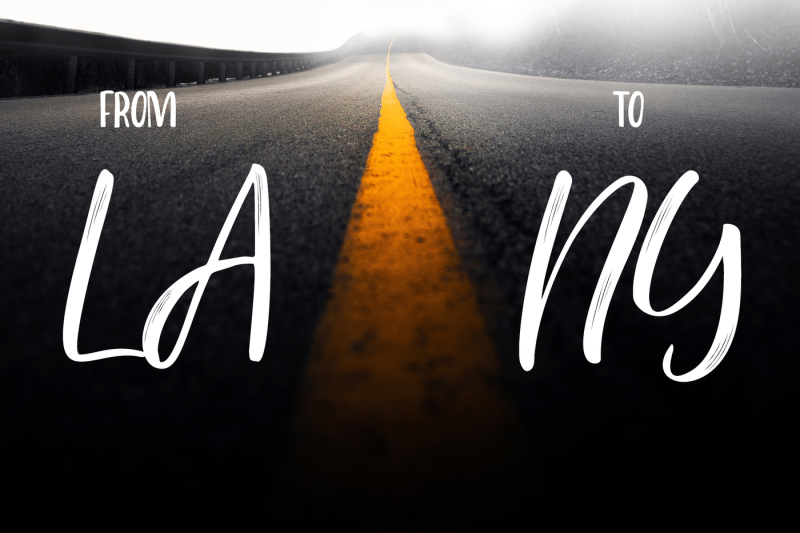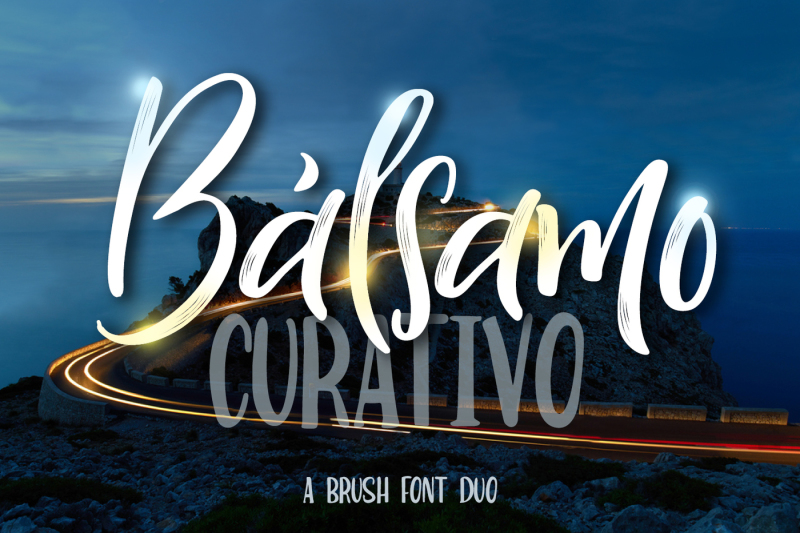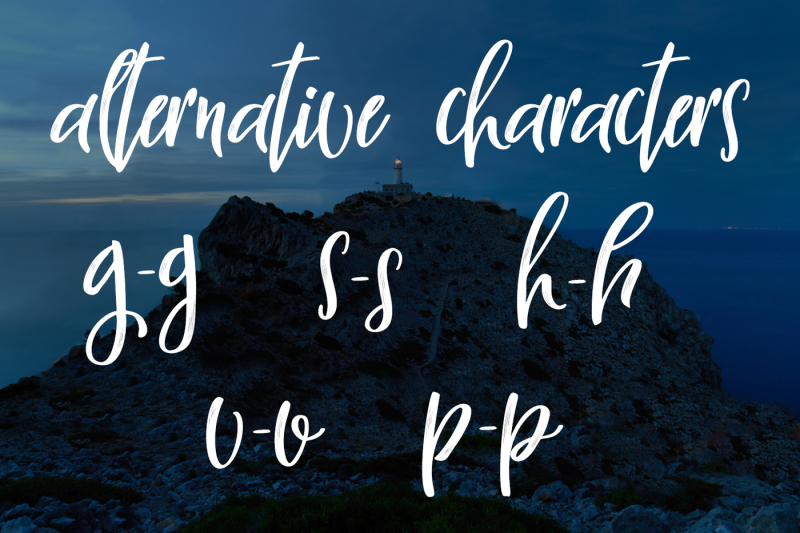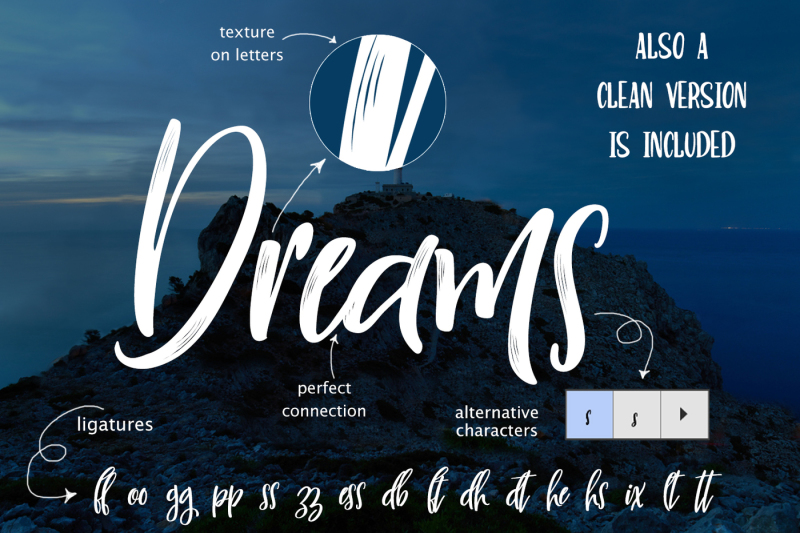
Bálsamo Curativo - Font Dou
Say hello to Bálsamo Curativo, script font dou! Bálsamo Curativo is a fancy handlettering typeface with a clear style, good mood, and dramatic movement. It's allowing you to create beautiful hand-made typography in an instant. The Bálsamo Curativo comes withset of lowercase alternates - pick the letters that looks best in your type design - and switch between different letters in the same word to create a more authentic look. Foreign Languages Support. Western European, Central, and South East European too. Spontaneity Font come with PUA Unicode that gives you full access to the ligatures and alternates in software that doesn't support the extra characters. You'll receive: Bálsamo Curativo - main font Bálsamo Curativo - Clean Bálsamo Curativo CAP All font in .otf, .ttf, .woff and .woff2 formats. I hope you have a blast using Marseille Font Duo! Happy creating! Thanks so much for looking and please contact me if you have any questions